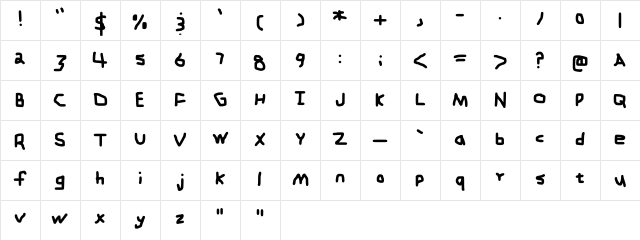
ZehkFont Medium Free Font
ZehkFont Medium
Design Context for ZehkFont
ZehkFont is a composed and adaptable typeface that performs quietly and consistently across a wide range of design contexts.
Pro Tip: Use ZehkFont in both headline and body roles to test its range before committing to a single application.